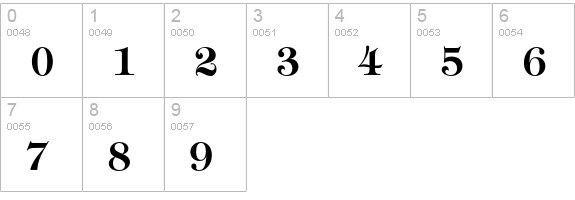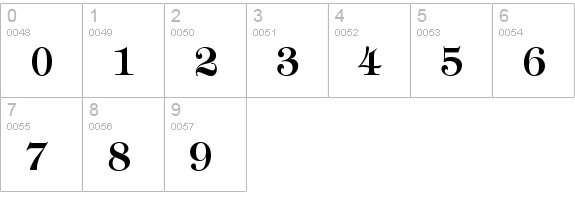
TiffanyEF-Demi is a sub-bold, structured variant in the TiffanyEF typeface family \xE2\x80\x94 well suited to sub-headlines and emphasised passages.
Introducing TiffanyEF-Demi, a strikingly elegant typeface that effortlessly combines sophistication with a touch of playfulness. This font is perfect for those seeking to add a touch of glamour and modernity to their designs. With its bold and confident letterforms, TiffanyEF-Demi commands attention and ensures your message is conveyed with style and impact. The beauty of TiffanyEF-Demi lies not only in its captivating aesthetics, but also in its versatility. Whether used for headlines, logos, branding, or any design project, this font adapts seamlessly to various styles and contexts, effortlessly elevating any visual composition to new heights. And the best part? TiffanyEF-Demi is available for FREE download exclusively at FontsMarket.com. Yes, you heard it right - this exquisite font can be yours without any cost. So why wait? Enhance your creative endeavors and make a statement with TiffanyEF-Demi, now freely accessible to all designers and typographers. With its wide range of characters and meticulous attention to detail, TiffanyEF-Demi offers endless possibilities for artistic expression. Its clean and legible design ensures readability across various platforms and mediums, guaranteeing that your message will be conveyed with utmost clarity. Experience the beauty and versatility of TiffanyEF-Demi today. Download this exceptional font for free at FontsMarket.com and unlock a world of design possibilities. Whether you're a professional graphic designer or an aspiring artist, TiffanyEF-Demi will undoubtedly become an invaluable tool in your creative arsenal. Don't miss out on this remarkable font - grab it now and embark on a journey of visual excellence.